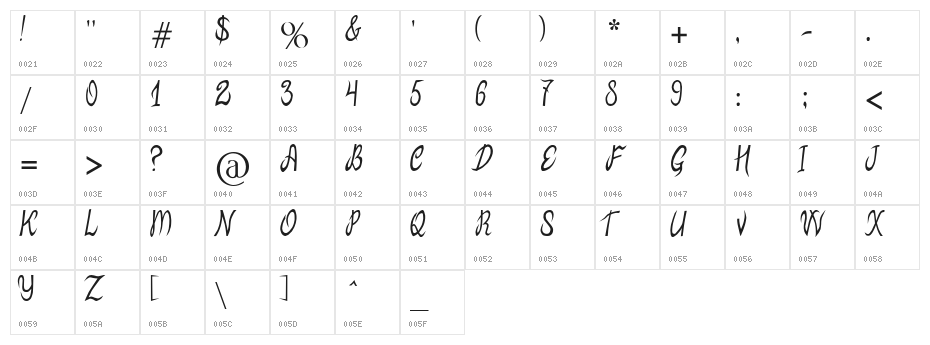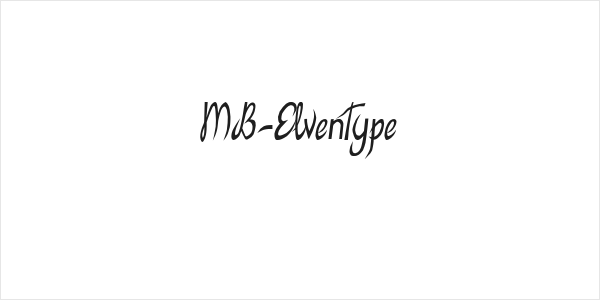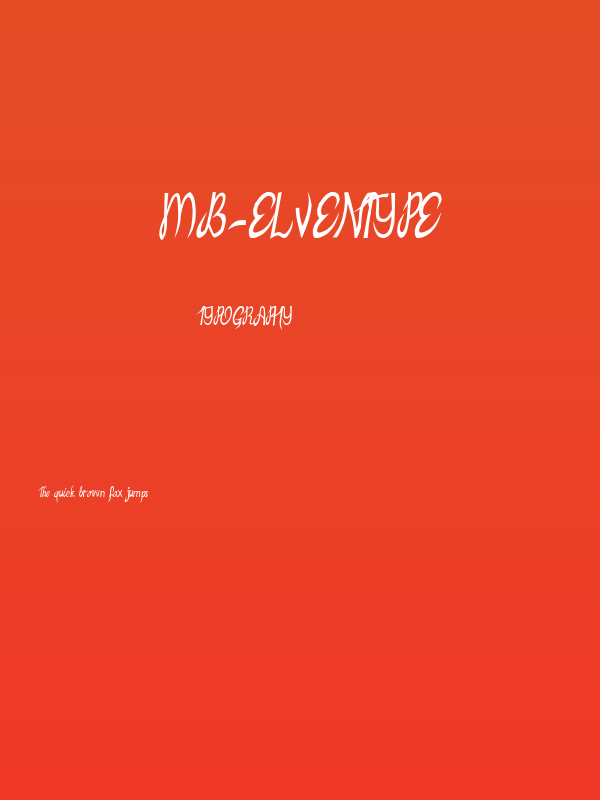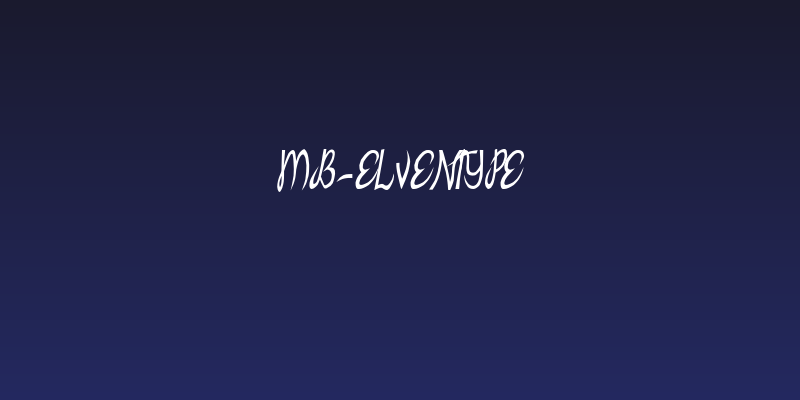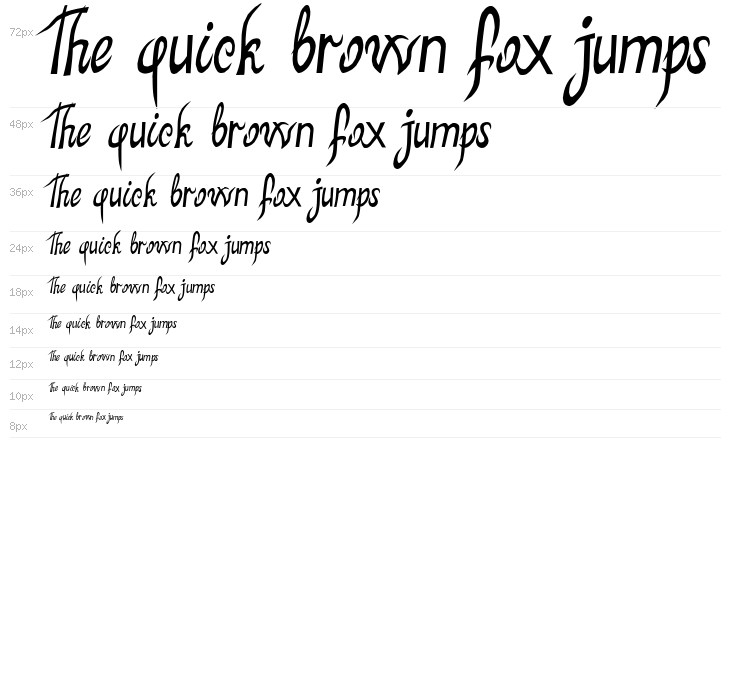
MB-ElvenType Font
| Caso d'uso | Headlines, Logos, Invitations |
| Progetti proposti | Ideal for fantasy-themed projects, book covers, invitations, and branding that requires a touch of elegance and mystery. |